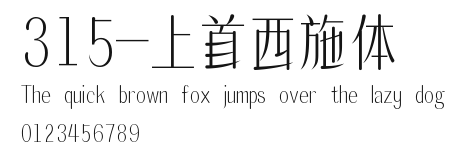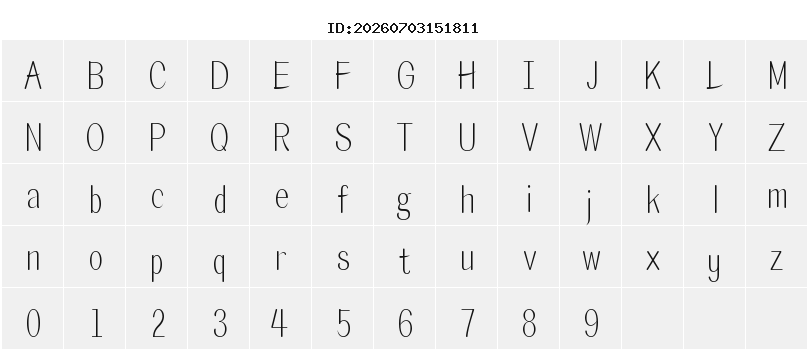
315-上首西施体 Preview
• Font Name: 315-上首西施体
• Full Font Name: 315-上首西施体
About 315-上首西施体.ttf
315-上首西施体.ttf is a modern, elegant sans-serif font designed for ultimate readability and visual harmony. Perfect for branding, headlines, web design, and print materials.